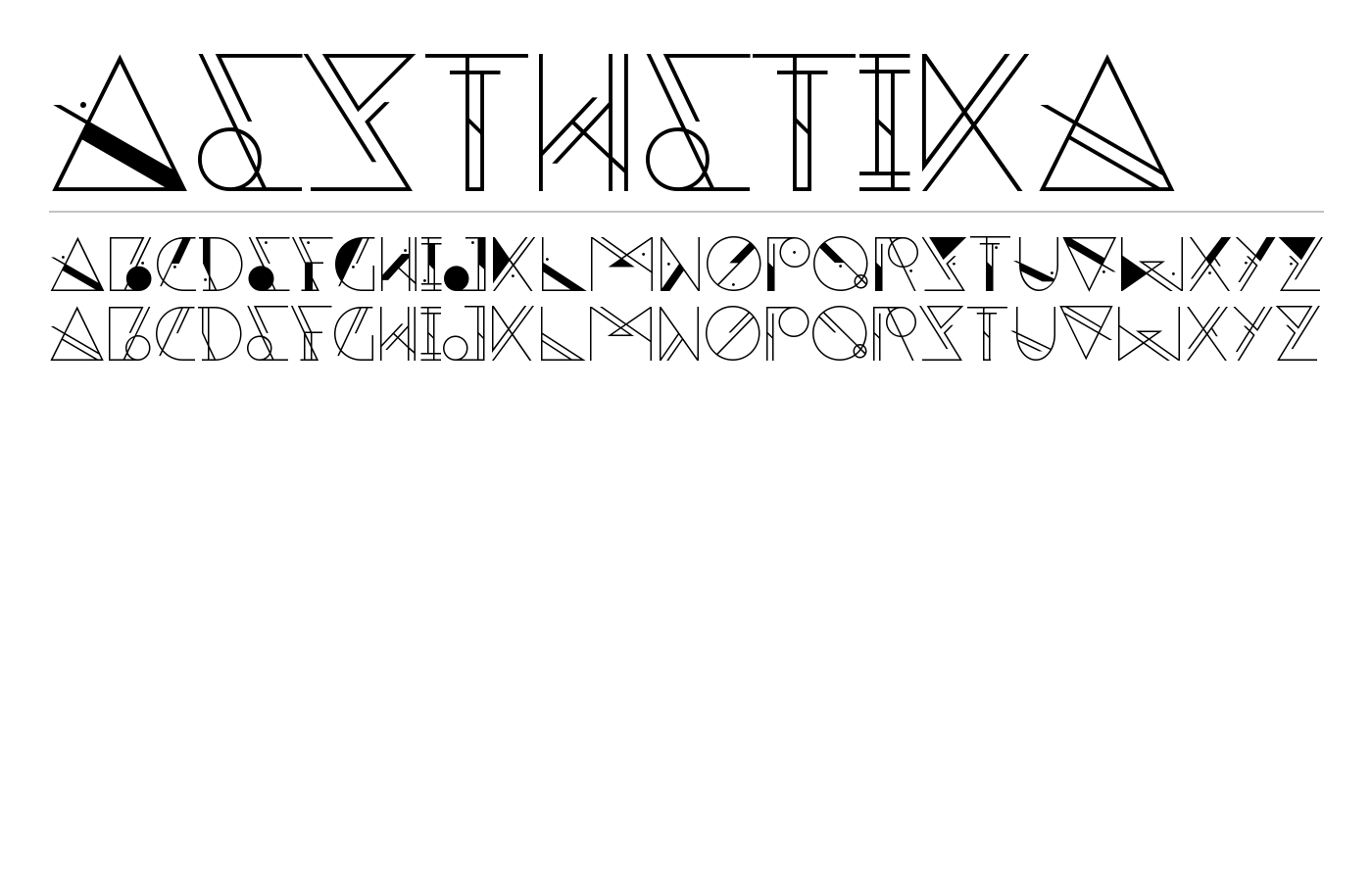
Aesthetika is a striking, modern sans serif font with a highly geometric and decorative style, characterized by thin, sharp lines and unique triangular and circular embellishments within each letterform. Its artistic and avant-garde appearance makes it perfect for creative branding, fashion headlines, or editorial design where a bold, futuristic statement is desired. This font works best in large sizes where its intricate details can shine, lending an elegant yet edgy vibe to visually driven projects.
Aesthetika Font
About Aesthetika Font